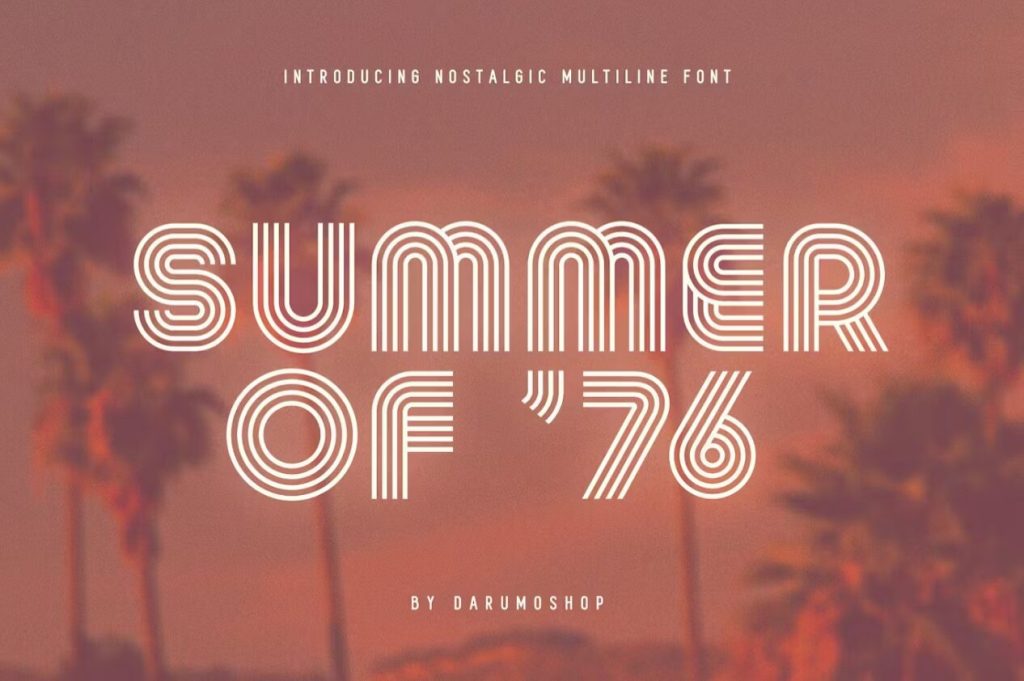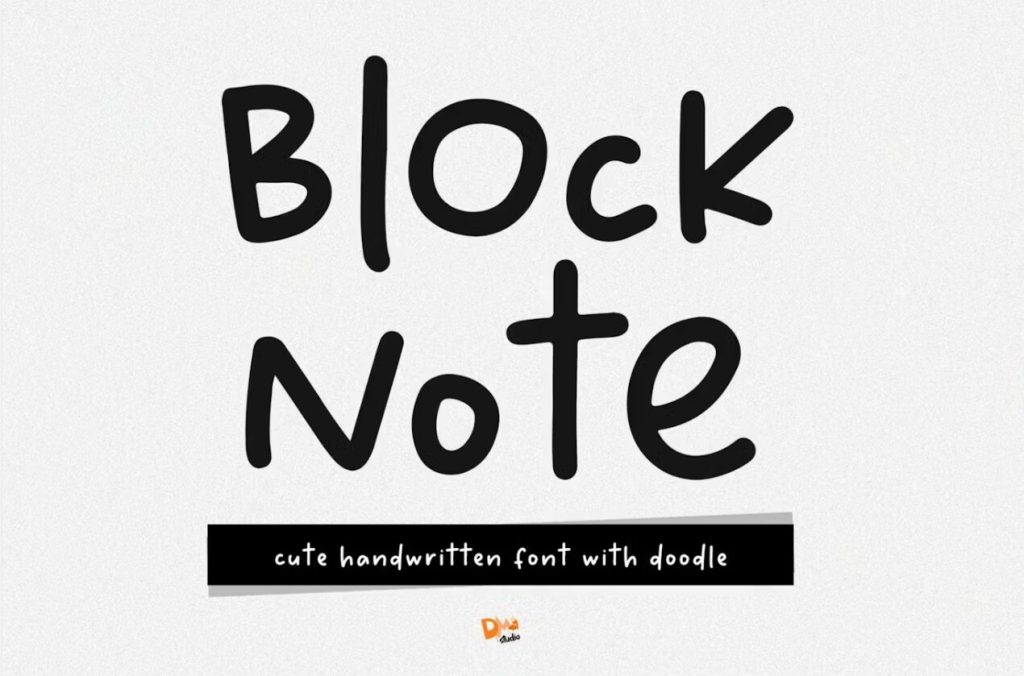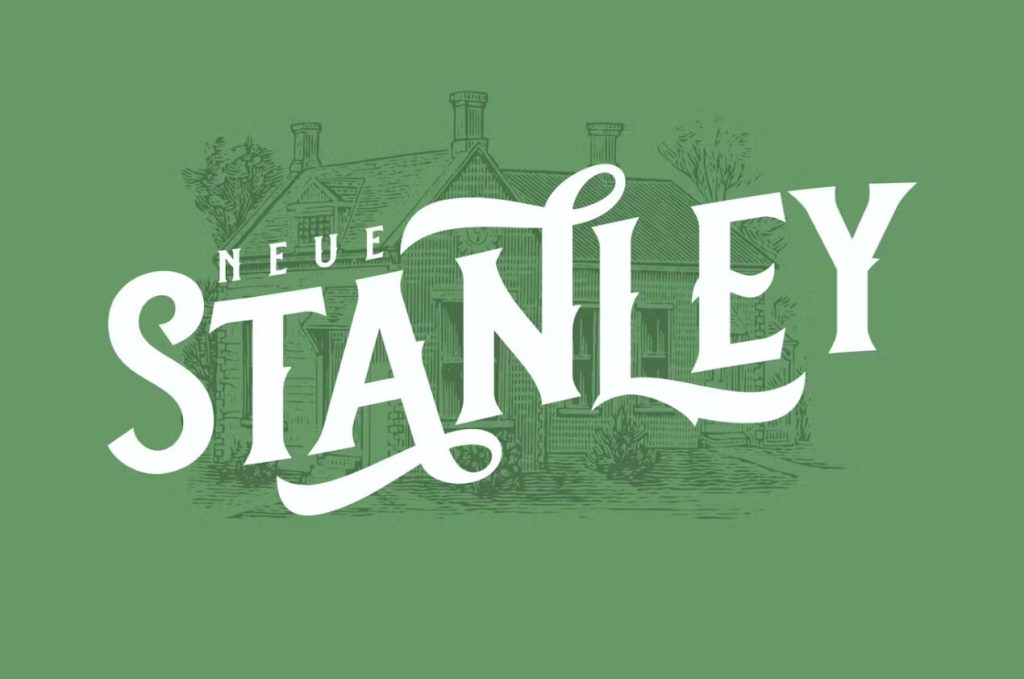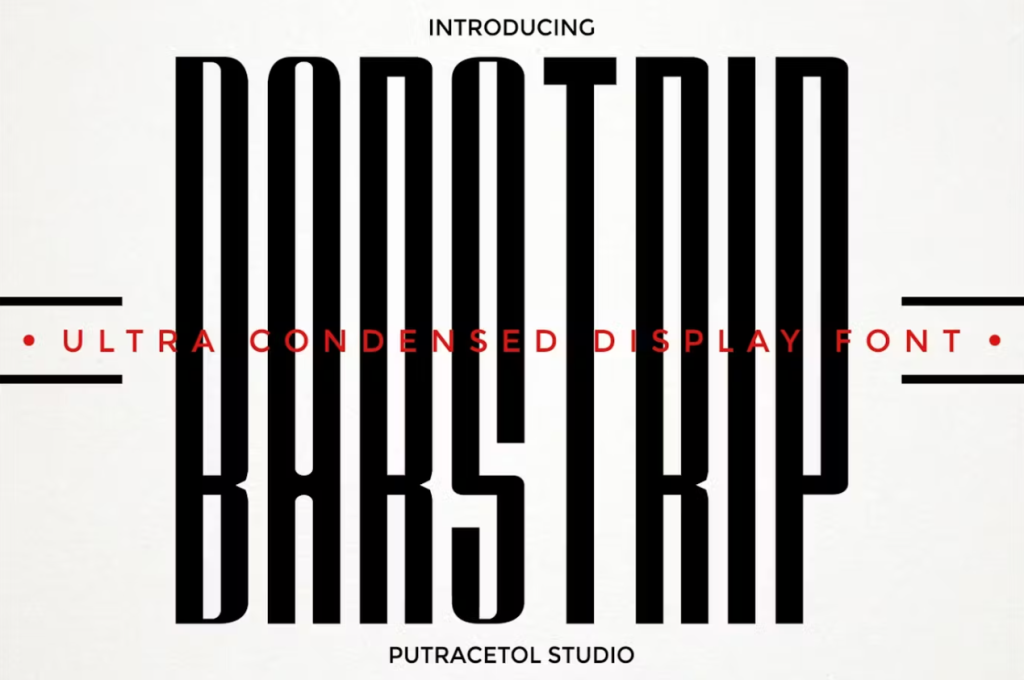
A block letter font is one of the best attention-grabbers because it is tall, bold, and prominent. Whether you’re designing a logo or trying to make your social media posts pop, you should consider using one of these blocky typefaces.
What is a Block Letter Font?
Block letter fonts are bulky and bold. They come in many variations, including sans-serif to achieve a minimalist look, serif to add a classy feel, modern ones for a contemporary statement and retro fonts for an old-school theme.
These fonts are known for their thick letters, which promote accessibility, legibility and a clear approach to a brand’s messaging. They are easy to read and allow versatility throughout mediums. The fonts can be used digitally and in print, providing designers with a broad scope of adaptability for their designs.
Compared to other styles, this font style provides a playful and striking effect, elevating a design aesthetically.
The Science Behind Choosing the Right Font
Using block font letters elevates a design, but there are nuances to ensuring the design is smooth and manageable. With block letter fonts, a design gives off a frilly and eccentric vibe, piquing the reader’s interest in the brand and its message and adding to the original intent of the font itself.
For example, a classic block letter font is great for bringing attention to a message. A modern, rounded one is useful for clean-looking copies and athletic and solid-looking block letter fonts give the design a vintage feel.
Getting the right style and texture is more than just choosing a font. It involves creating a design that will influence the reader’s mind and contribute to their decision-making. Font appropriateness plays a big part in ensuring a brand converts its audience to customers. In research, 75% of subjects choose chocolate from boxes with appropriate fonts. In addition, the right font also increases reading speed by 35%, proving that suitable fonts affect user experience.
The font, among other things, shapes a design’s visual appeal, creates an equilibrium between the design and the copy and sways the readers’ attention from one part to another. When choosing the right font, a designer should consider:
- The brand’s personality: The font must match the brand’s message and identity.
- The font’s legibility and clarity: Ensure the font is easy to read and visually accessible.
- Location of the copy in the design: Check if the context of the copy aligns with the font. For example, block letter fonts are suitable for headlines but not so much for description copies.
Here are some block letter fonts to make a design pop and stand out:
1. Blocker
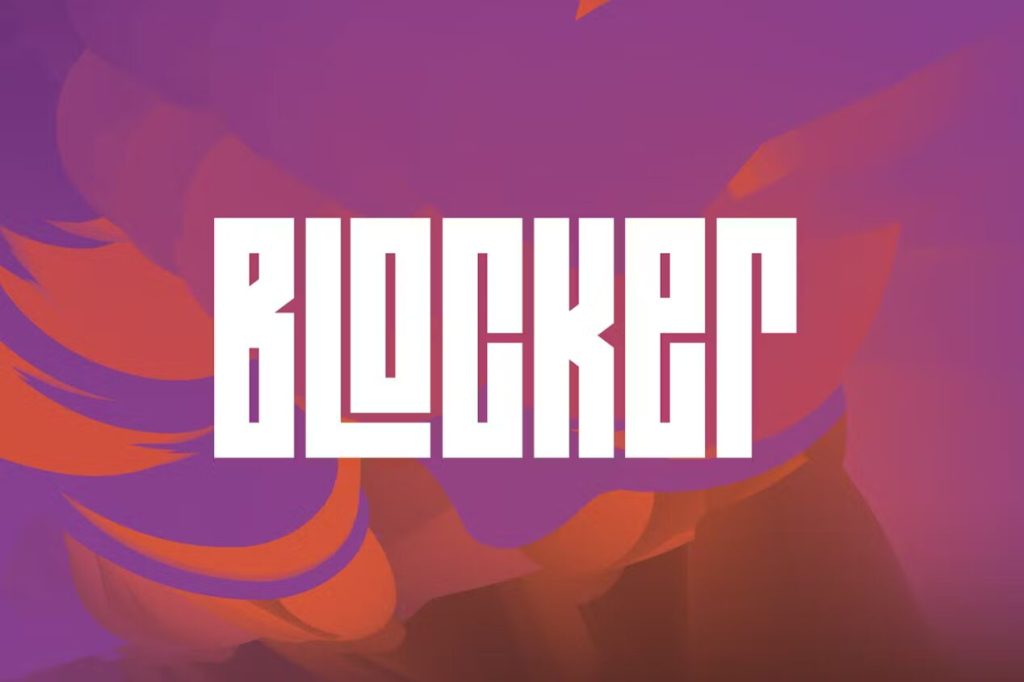
This sans-serif block letter font is stylized and condensed, making it ideal for large displays. Its mix of upper and lower-case letters subconsciously draws attention while making the typeface more visually interesting.
Since Blocker is so compact, the letter’s matching heights seem more visible. They look like they fit together as puzzle pieces, which is visually appealing to viewers. Music, entertainment, and fashion companies could use this blocky font in posters, social media posts, or headers.
2. Block Paper
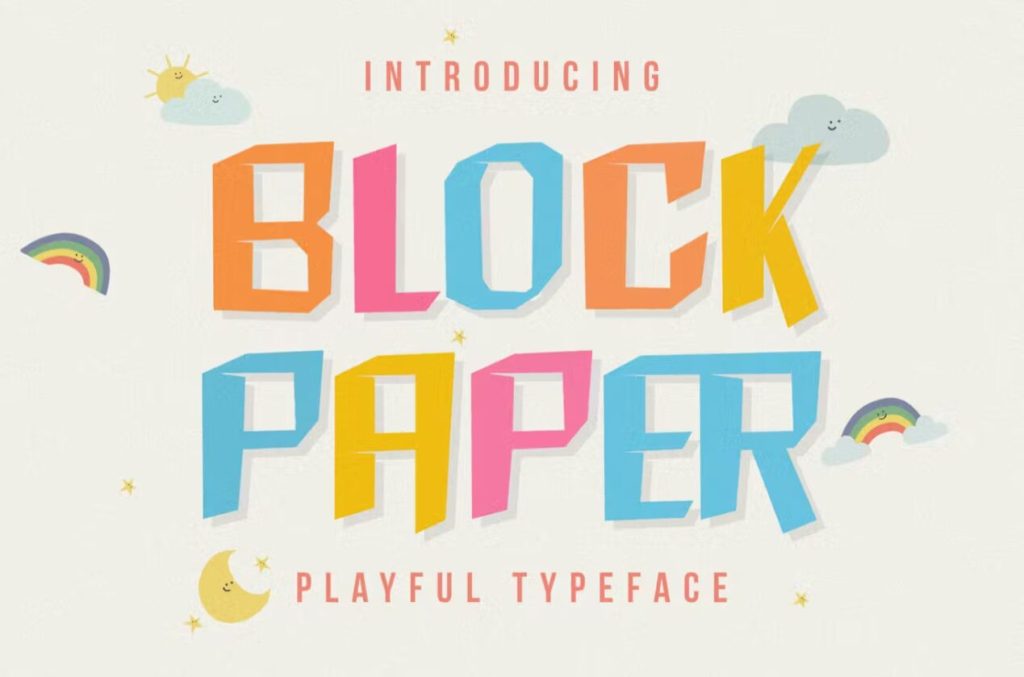
Block Paper is straight out of a children’s storybook. While it’s naturally ideal for kids-centric projects, you can easily use it for generic branding, posters, merch or logos. Its whimsical, distinct design mimics cut-out letters, making it ideal for physical media — or designs needing a personal, friendly touch.
3. Hexagon
Hexagon is a unique block letter font for two reasons — it’s visibly tilted and uses a combination of black and white. It has an eye-catching three-dimensional style that would be visually striking in numerous kinds of projects.
4. Achtech Block
Actech block is bold, strong, and modern. Its sharp edges and small counters exude a sense of power. This sans-serif block letter font was specially designed for web use, so it’ll work great in headers, graphics, logos, and branding. While its elongated octagonal design is best for large displays, each letter will stay identifiable at smaller sizes.
5. White Block
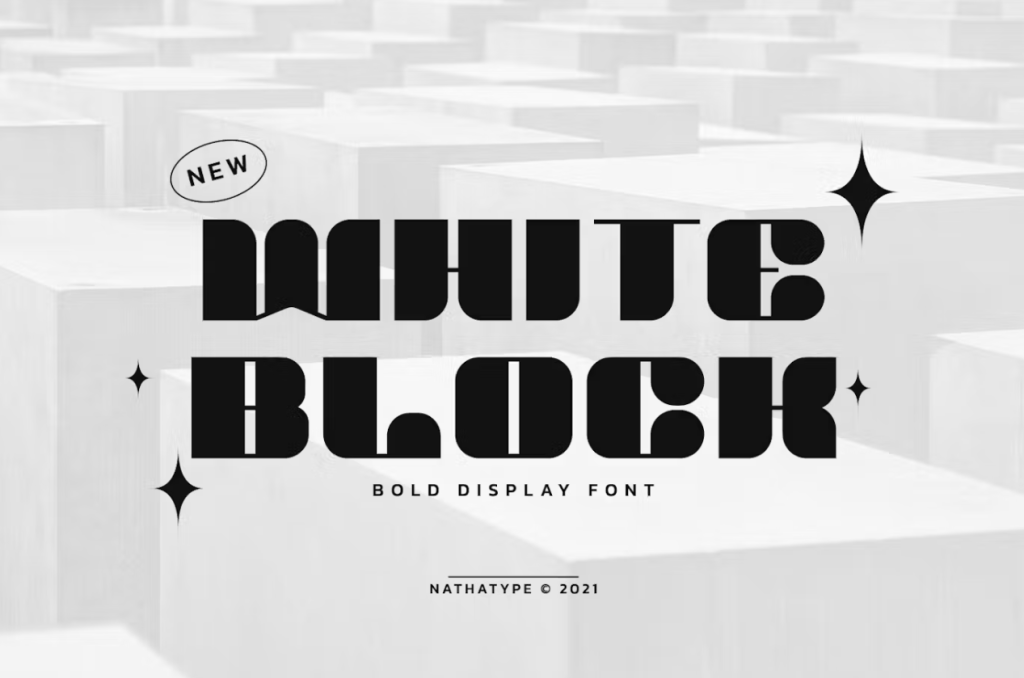
This serif web font takes inspiration from 60s fonts but ultimately appears modern and stylish. While each letter’s stems, arms, or crossbars are thin and straight, the rest is curved, bold, and exceedingly thick. Its line weight is both very heavy and light, making it visually interesting to the viewer.
You’d have the best luck using this bold block letter font in large displays — or sparingly in small ones — as its unique weight may be challenging to read at a distance unless the letters are big enough. Website graphics, invitations, and branding are all good use cases. However, experimenting with online posts, print media, or logos isn’t out of the question.
6. Play Me Games
This 16-bit block letter font is similar to 8-bit blocky fonts but has more detail and is less condensed. While it’s reminiscent of a classic video game’s title screen, its modern use cases are broader. It would work well in the headers, online posts, graphics, or logos of tech-centric businesses.